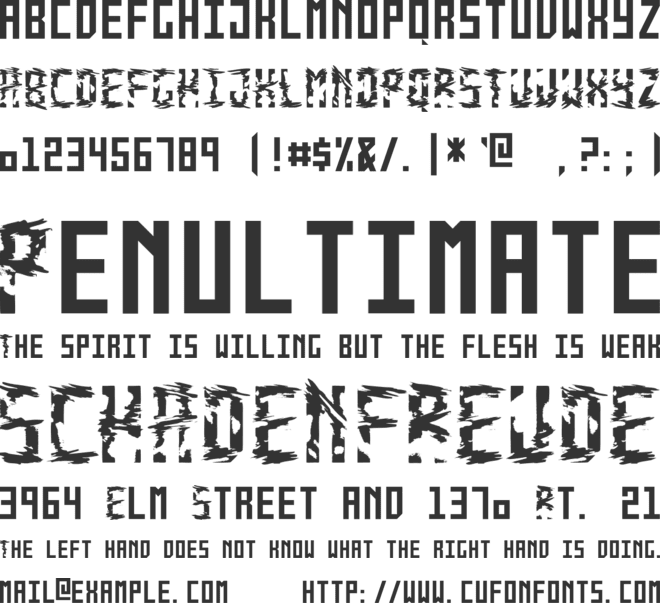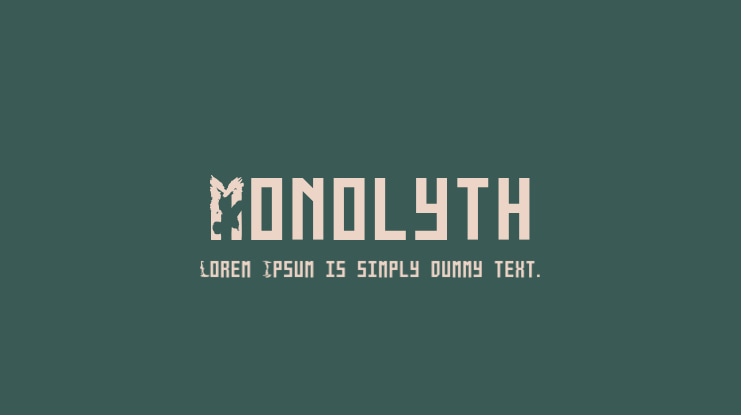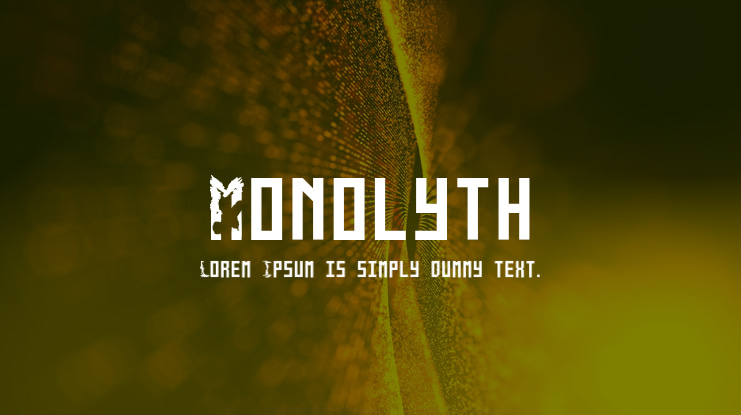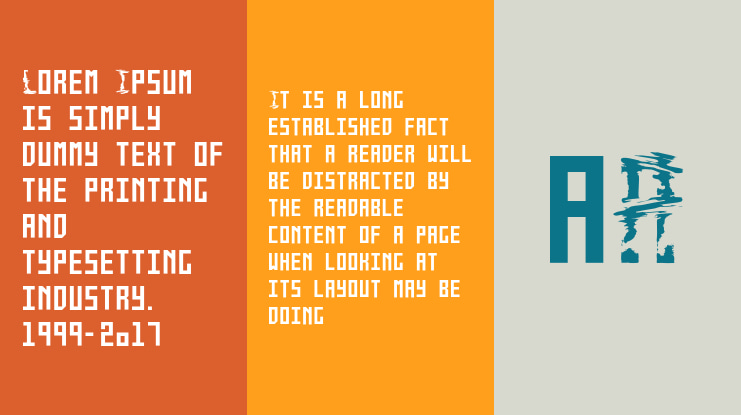
Monolyth Font Family
Monolyth monospaced. A very simple, constructed, monospaced font with manually destroied capitals. For geometrical graphic designs or headlines. The capitals may be used for more free works, theme based. !NOTICE!: the capitals have a huge amount of anchor points, so their use require more hardware engine than ordinary fonts. Have fun by using it!